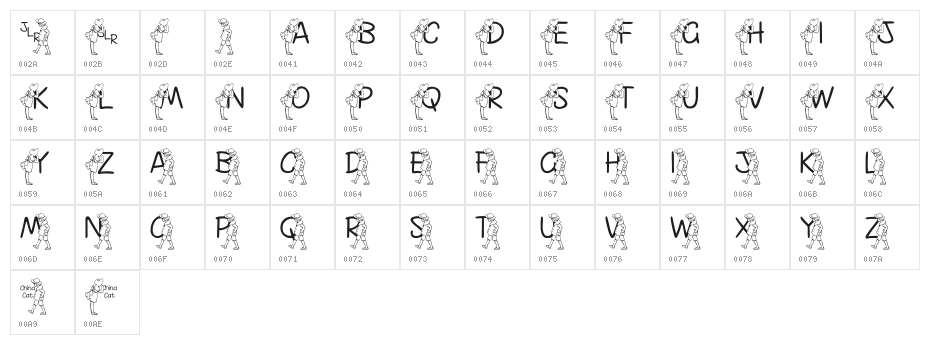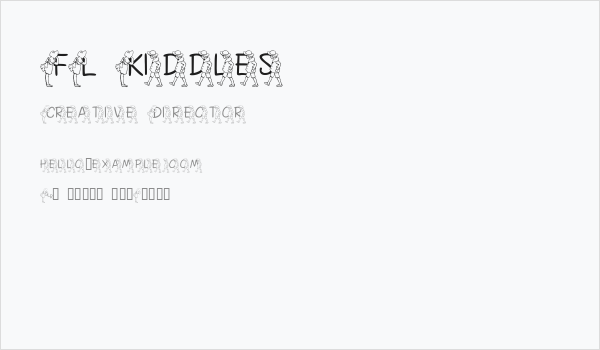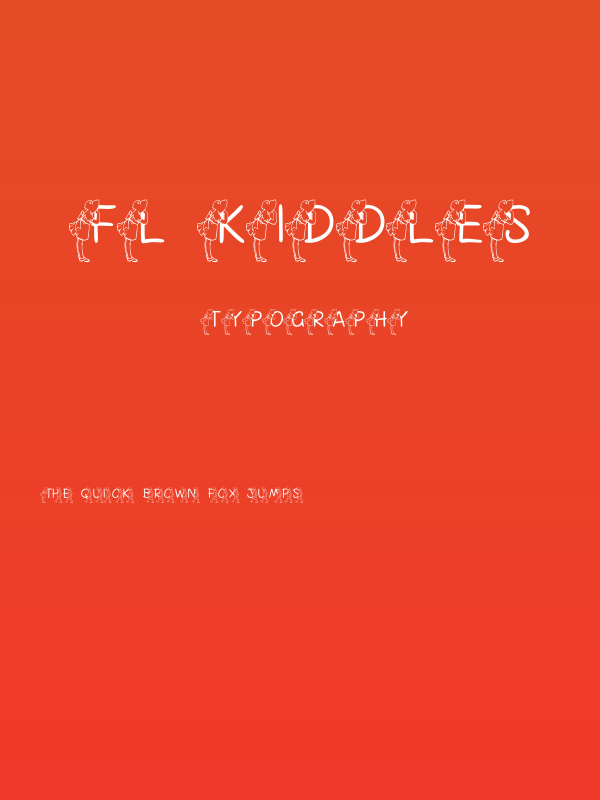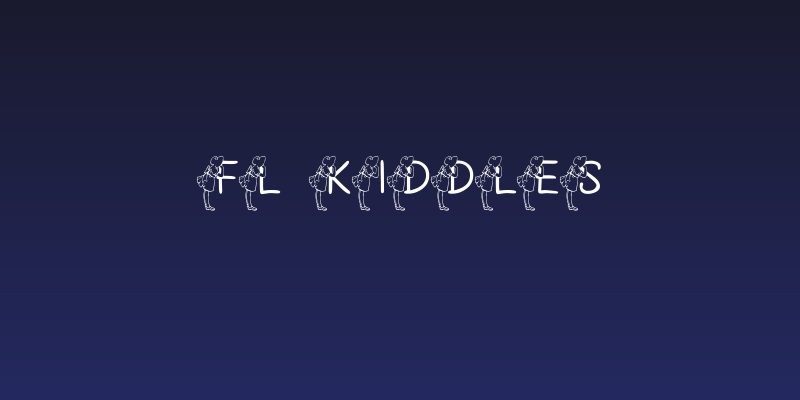
FL Kiddles Font
FL Kiddles Description
This playful and whimsical font features characters that are creatively integrated with illustrations of children walking. Each letter is accompanied by a child figure, adding a unique and imaginative touch. The font maintains a consistent style with smooth, rounded edges and a friendly appearance. The characters are bold and easily readable, making it suitable for children's projects or playful designs. The integration of the illustrations with the letters creates a dynamic and engaging visual effect, perfect for capturing attention and adding a sense of fun and creativity to any project.
| Overall Style | Whimsical |
| Proposed Projects | Ideal for children's books, educational materials, playful branding, and creative posters. |